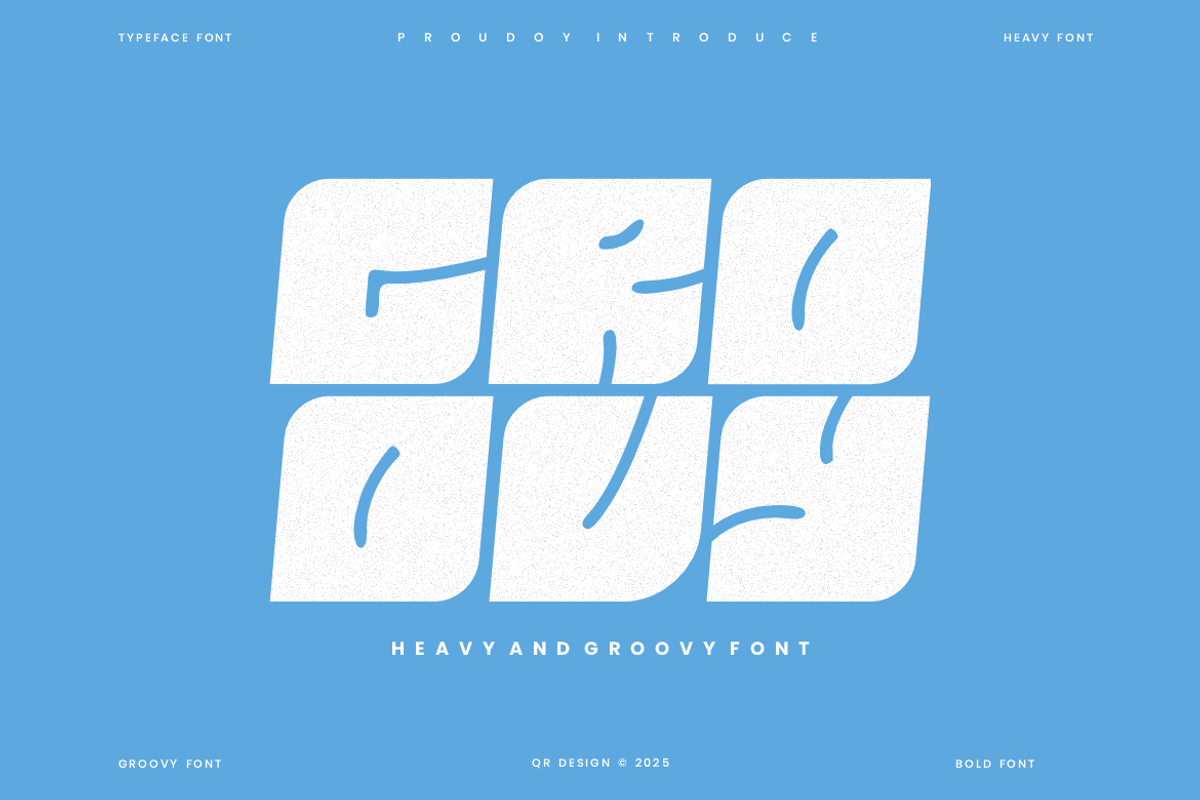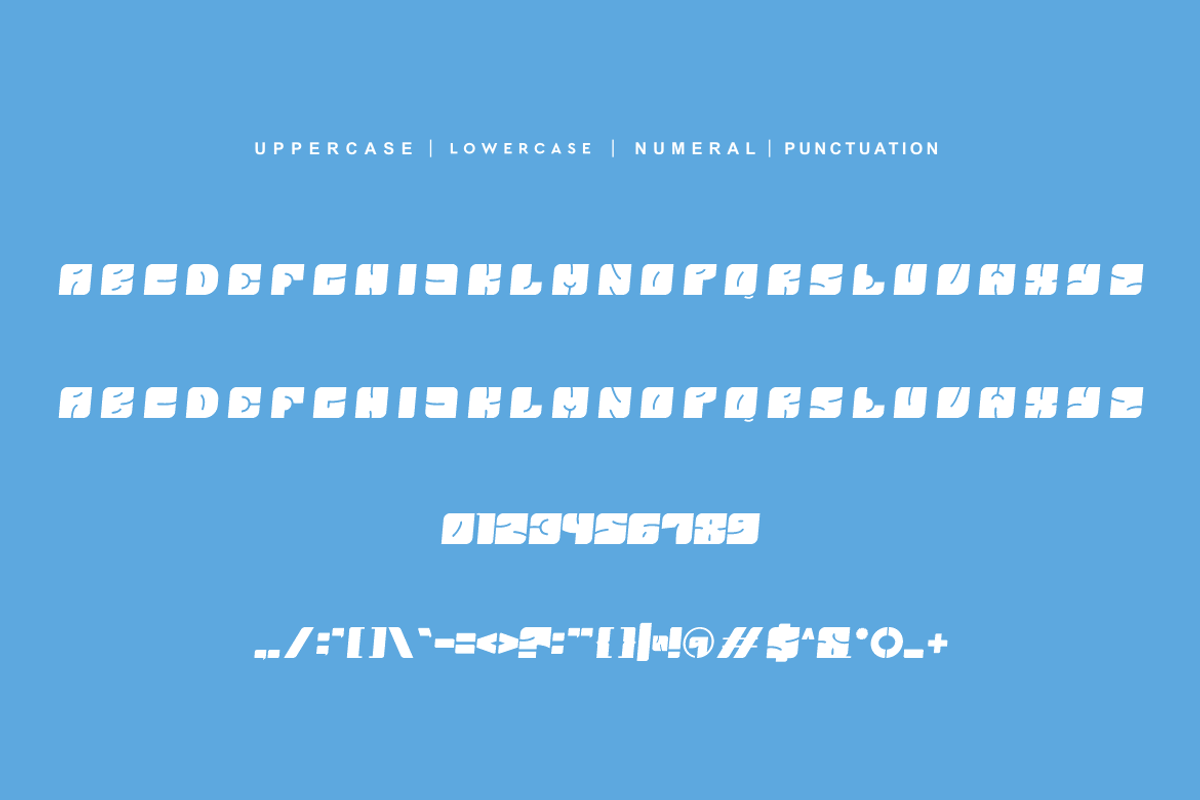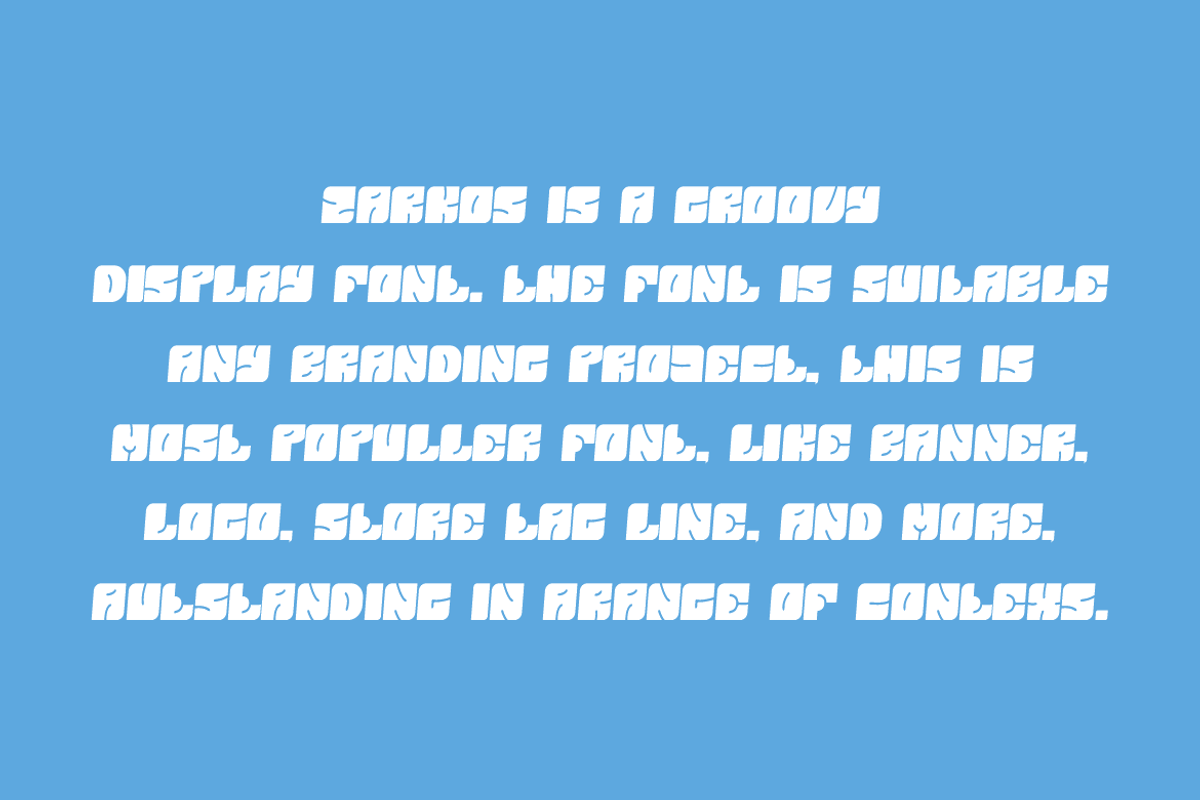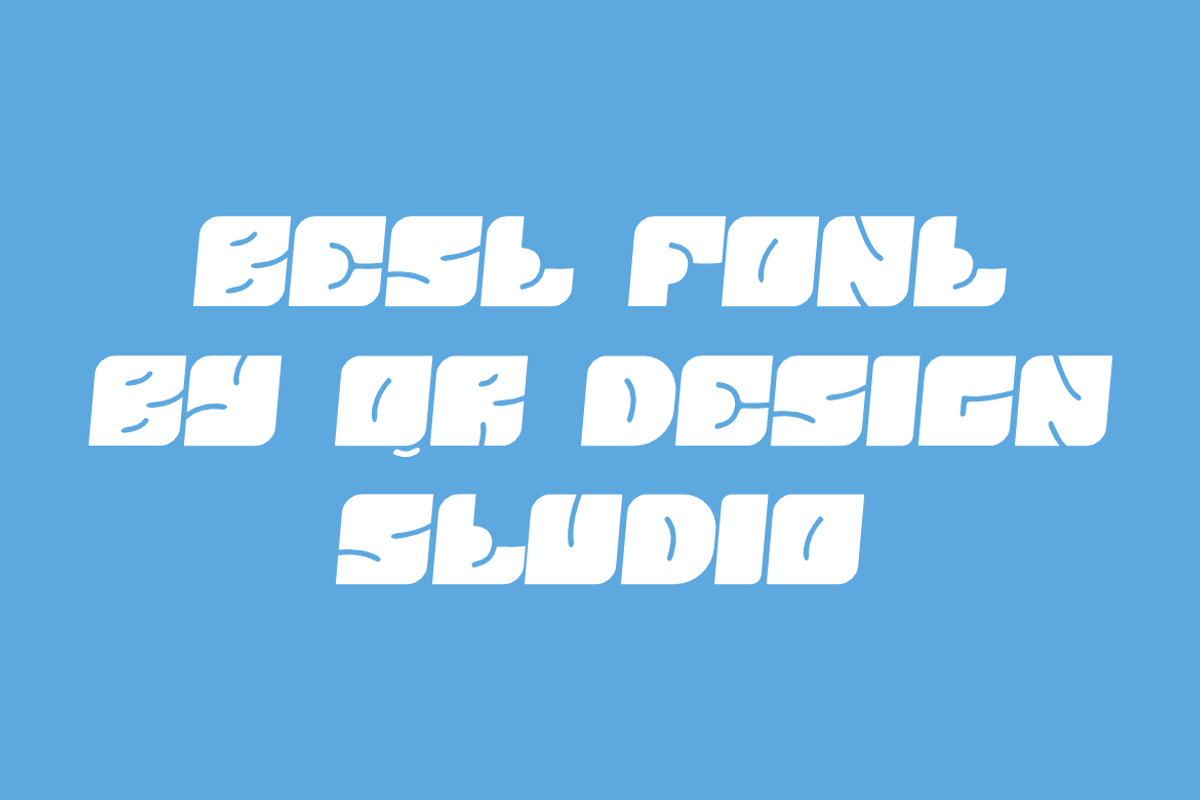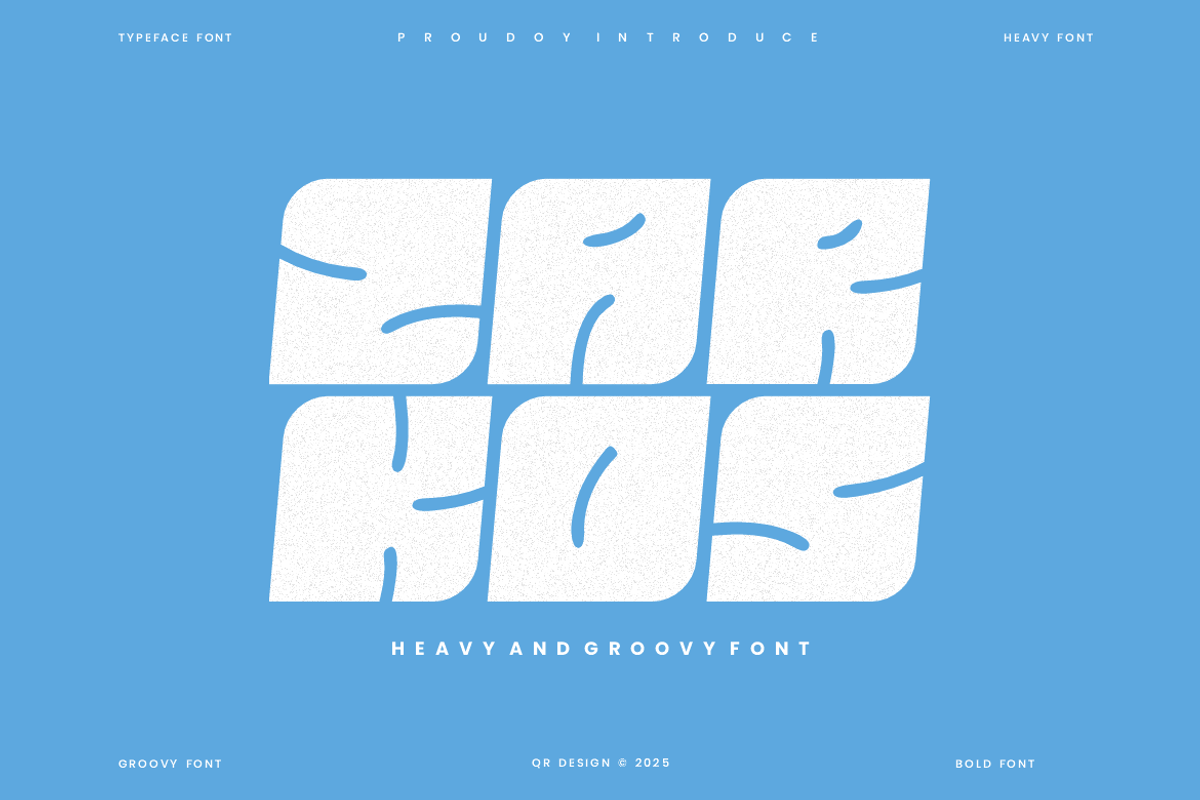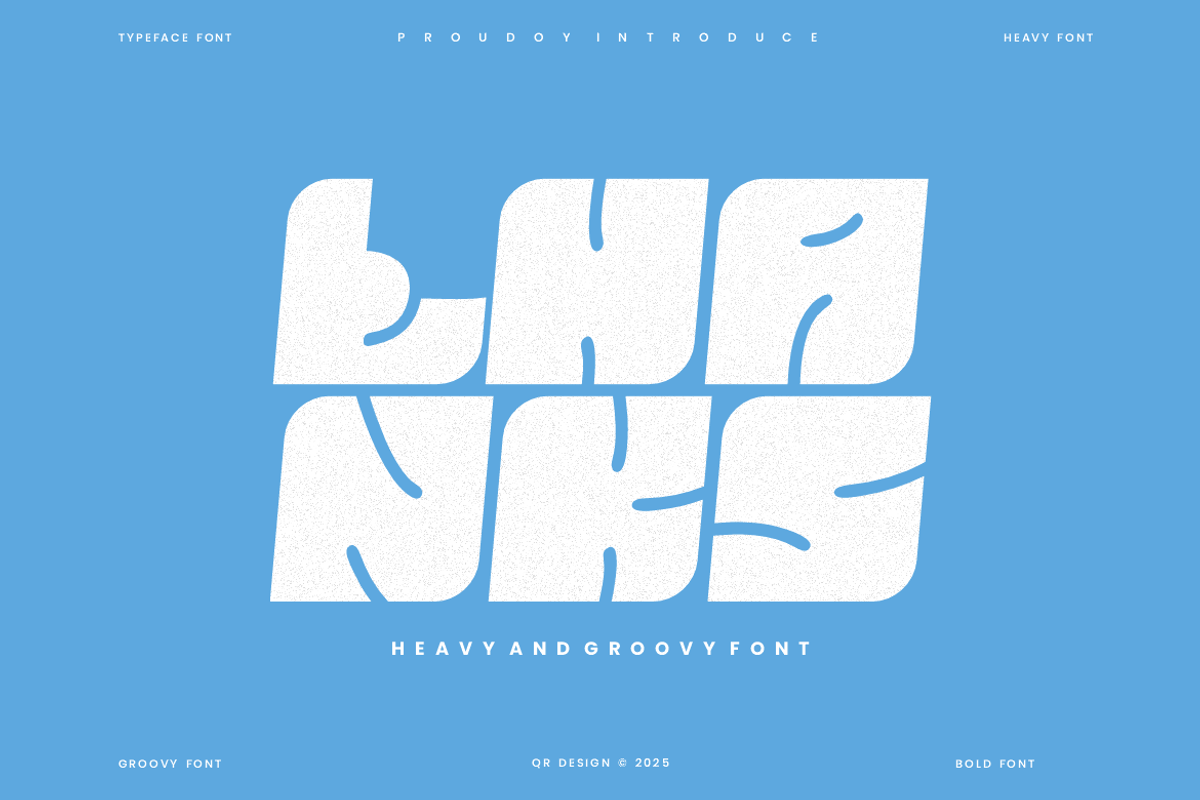
Zarkos - Bold Heavy Font
Zarkos - Bold Heavy Font is a bold and authentic display font. The font is suitable for any branding project like poster, logo, sport, and many more. Outstanding in a wide range of contexts.